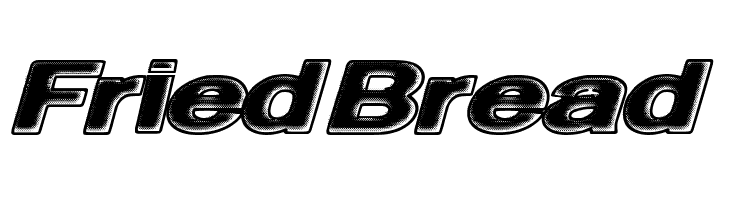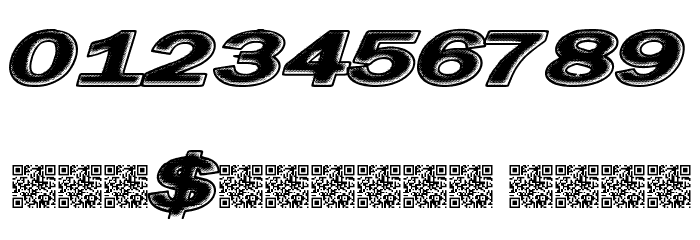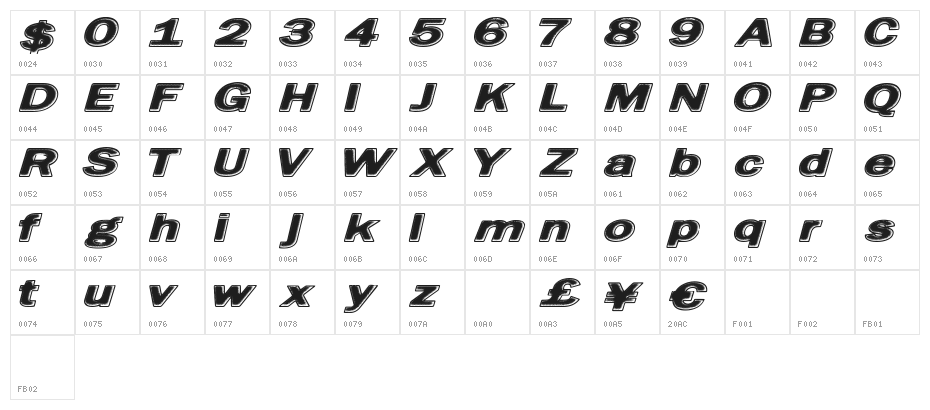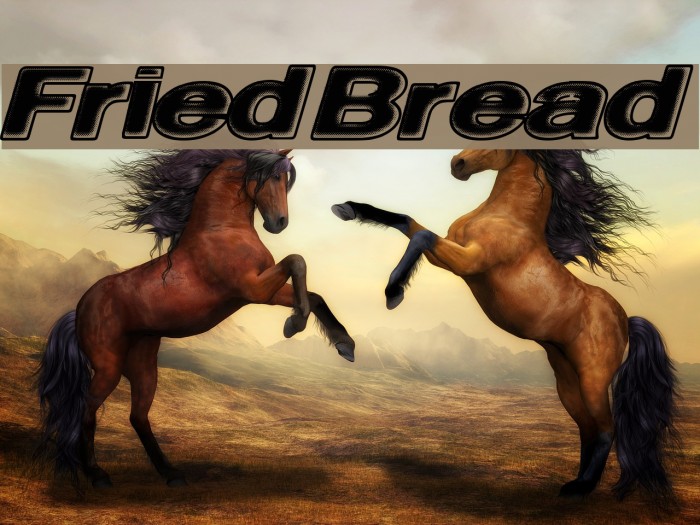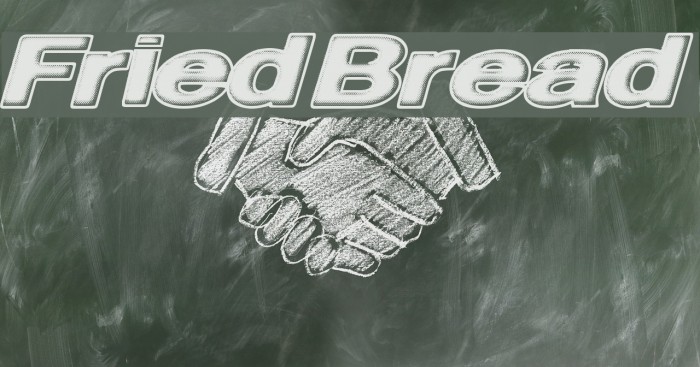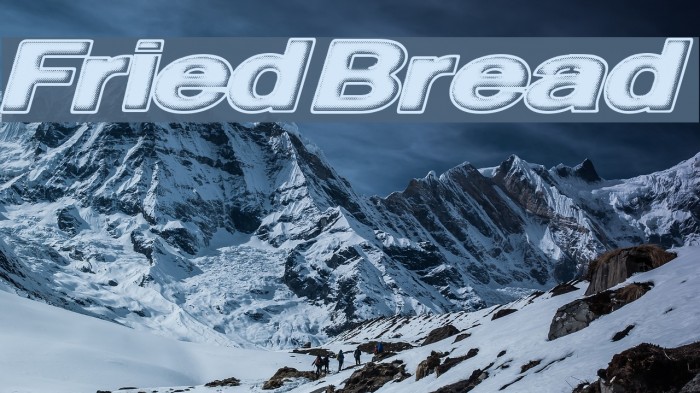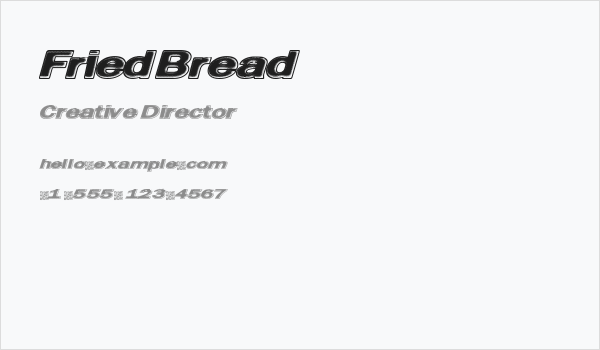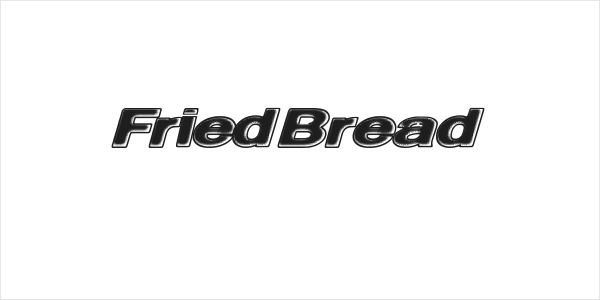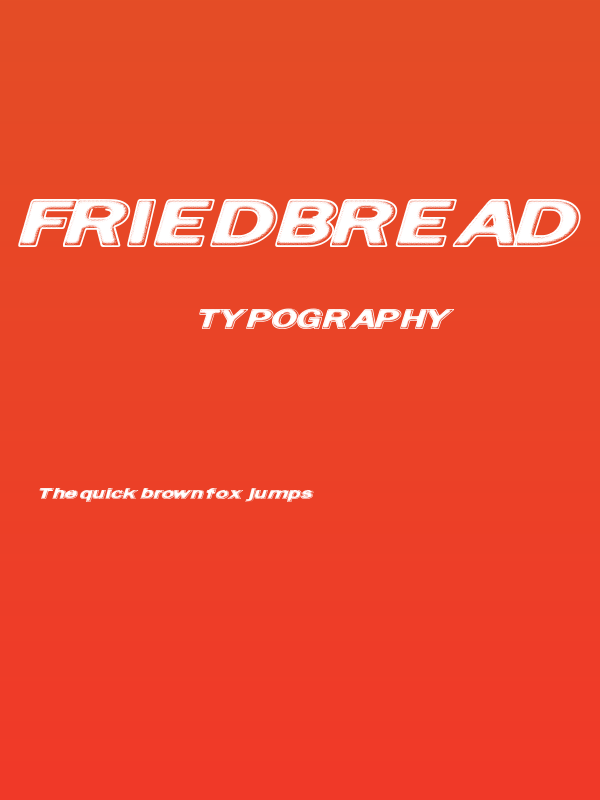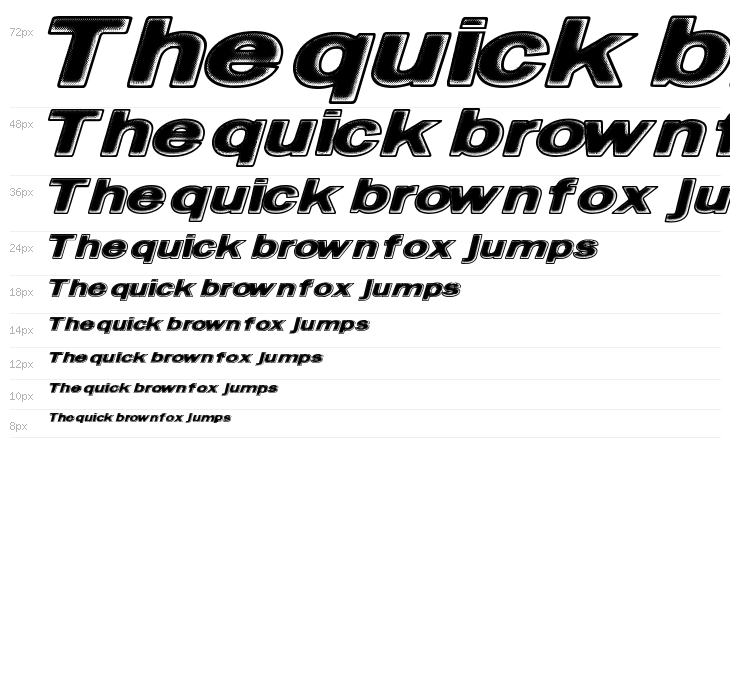
FriedBread Font
FriedBread Description
This font features a bold and dynamic style with a distinct 3D effect, achieved through a combination of thick strokes and a shadow-like outline. The uppercase and lowercase letters maintain a consistent weight, providing a sense of uniformity and strength. The numerals and special characters follow the same design principles, ensuring a cohesive look across all glyphs. The font's boldness and shadow effect make it particularly eye-catching, suitable for projects that require a strong visual impact. The character spacing is relatively tight, enhancing the compact and solid appearance of the text.
| Proposed Projects | Ideal for headlines, posters, logos, and any design requiring a bold statement. |